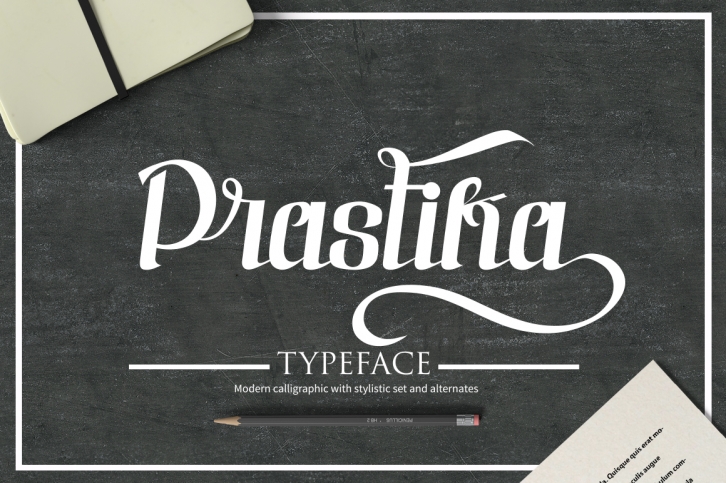
Prastika Script Typeface is a trendy and unique font with an authentic style. It was designed by wasana creative and it's a great choice for creative people who need such a font. It was released on June 7, 2017 and the file size is 21.64 MB. Prastika Script Typeface will add an organic vibe to any design idea!